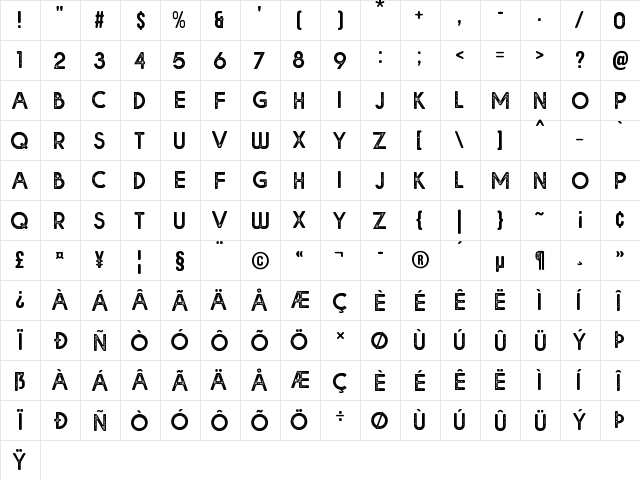
Bolde Rough Regular
Design Context for Bolde Rough Typeface
Bolde Rough trades polish for personality, using distressed and eroded forms to bring grit and attitude to creative work.
Suited to punk-influenced zines, underground music branding, streetwear, and raw, anti-corporate design.
Pro Tip: Pair Bolde Rough with intentionally raw or lo-fi design elements. Fighting against it with overly polished surroundings will undermine its personality.